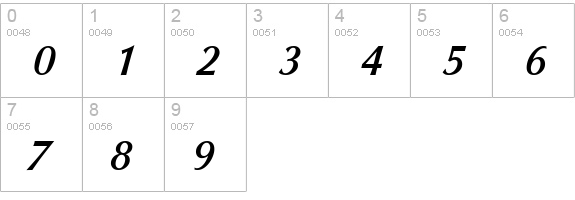
ColumbiaSerial-Medium-Italic Font Details
ColumbiaSerial-Medium-Italic is a balanced, medium-weight, italic variant in the ColumbiaSerial typeface family \xE2\x80\x94 well suited to sub-headlines, navigation, and balanced editorial work.
ColumbiaSerial-Medium-Italic is a sophisticated and elegant font that exudes a sense of modernity and style. Its sleek lines and subtle curves make it perfect for adding a touch of sophistication to any project. The italicized version of ColumbiaSerial-Medium adds an extra level of flair and personality to your designs. What makes this font even more appealing is that it is available for free download at FontsMarket.com. This means that you can easily access this high-quality font without breaking the bank. Whether you are designing a website, creating a logo, or working on a print project, ColumbiaSerial-Medium-Italic is sure to elevate your work to the next level. Download it today and see the difference it can make in your designs.